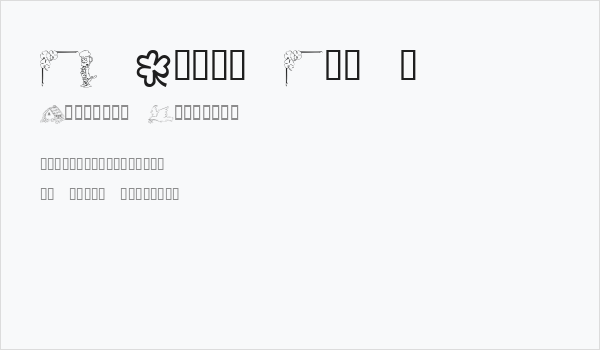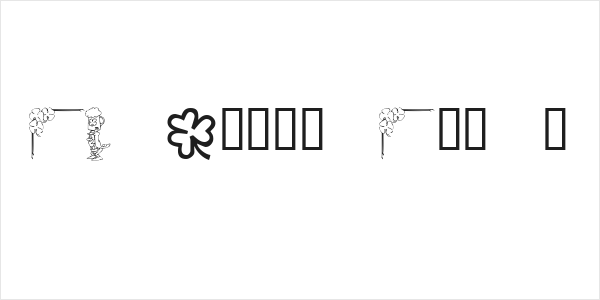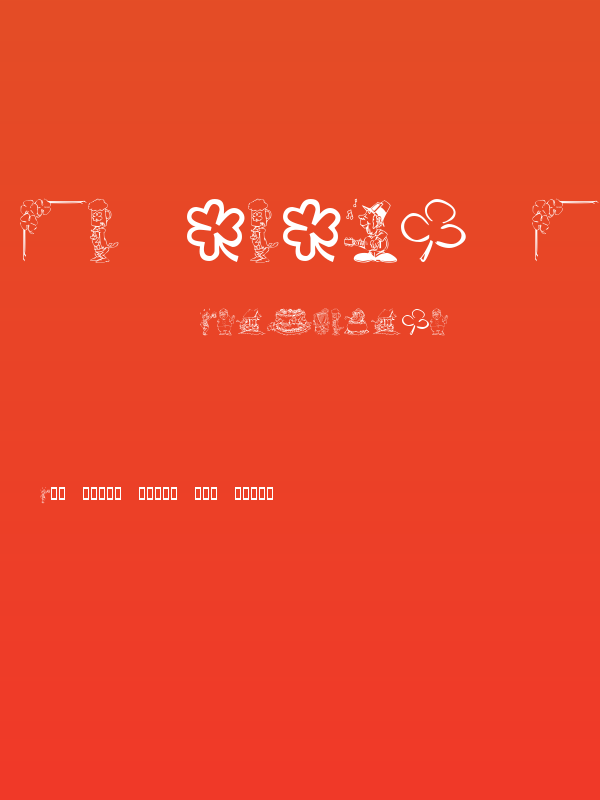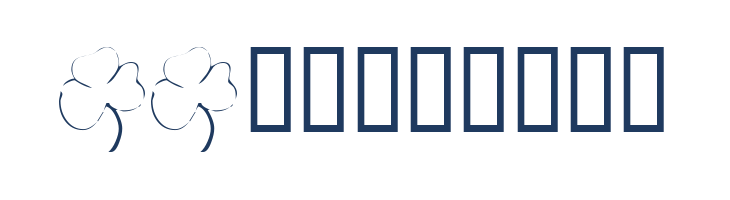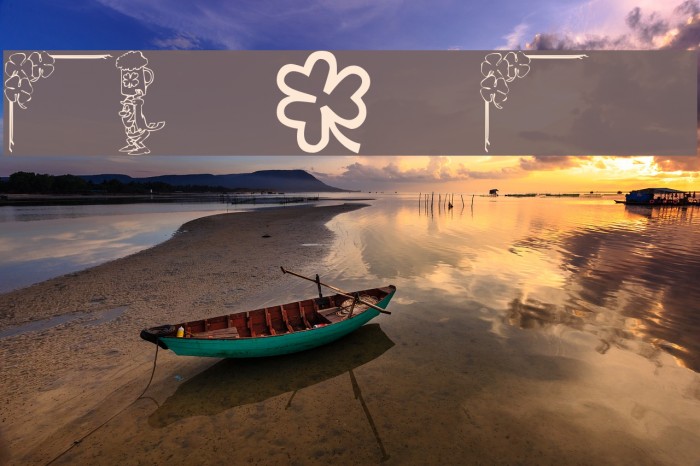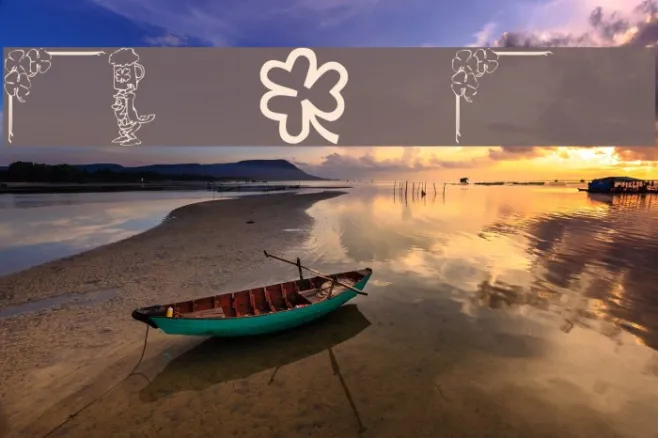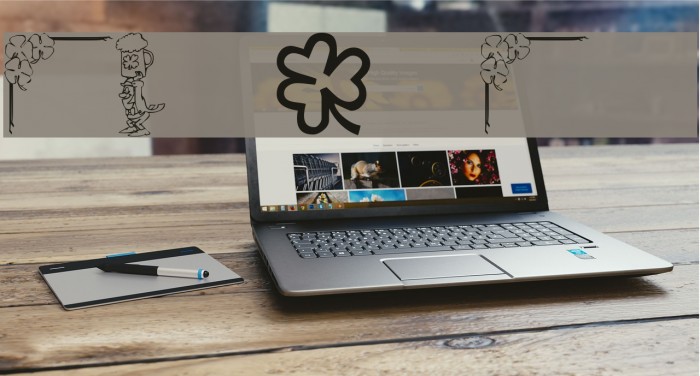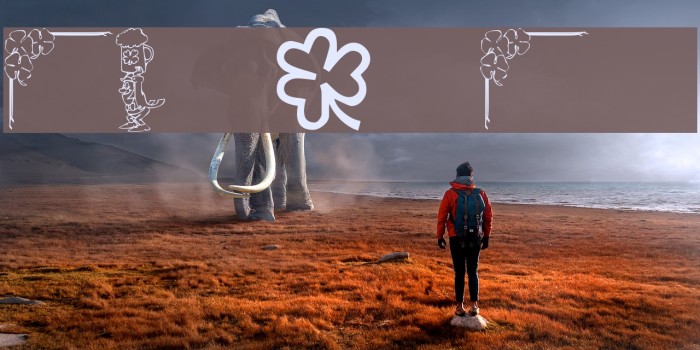
KR Irish Kat 1 Font
KR Irish Kat 1 Description
A decorative dingbat font featuring hand-drawn, whimsical Irish-themed illustrations such as shamrocks, leprechauns, harps, and festive motifs. Each glyph is a unique illustration rather than a standard letterform.
| Overall Style | Decorative, Whimsical, Thematic |
| Use Case | Decorative elements, Themed graphics, Illustrative accents |
| Proposed Projects | Holiday cards, party invitations, themed posters, scrapbooking, event decorations. |